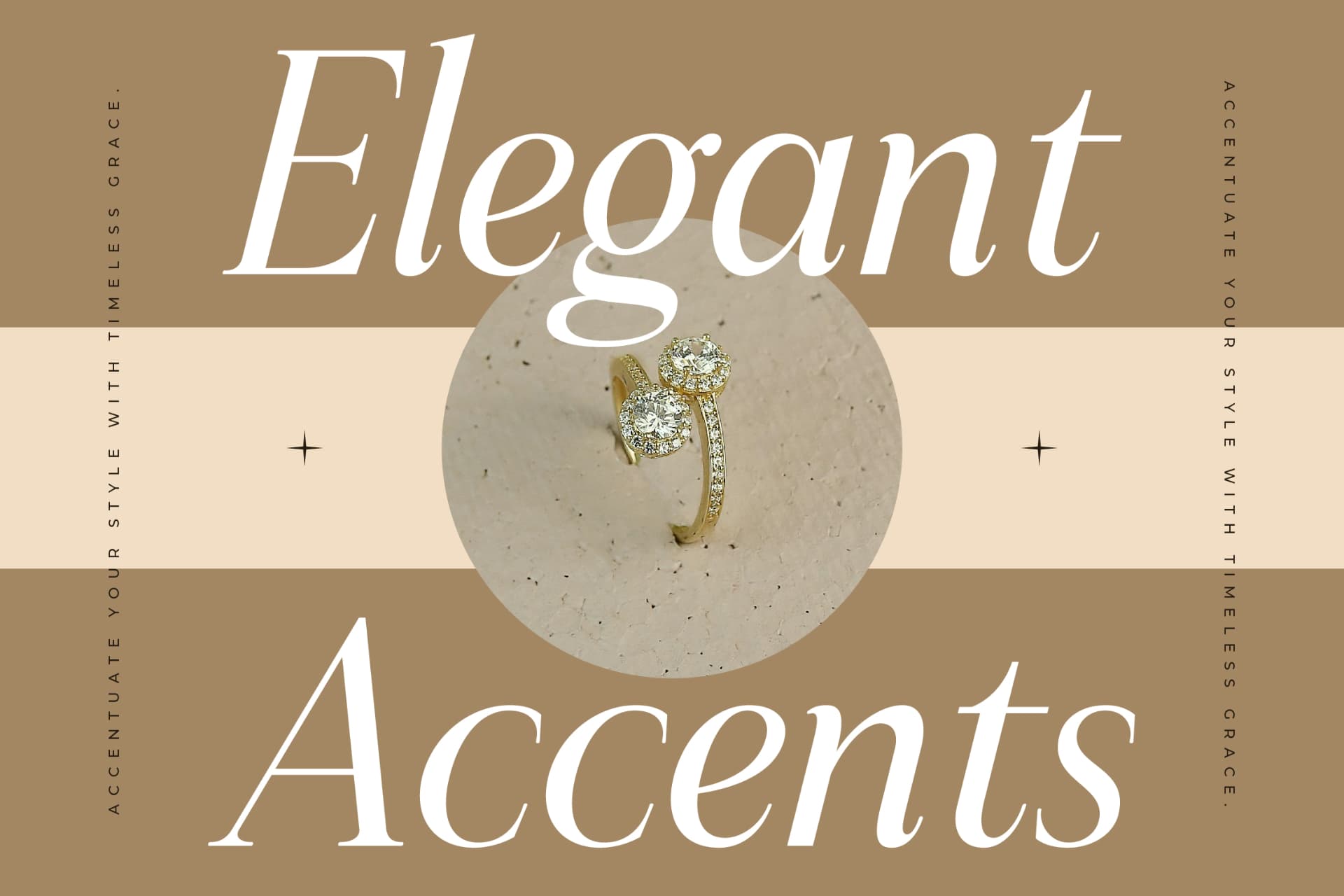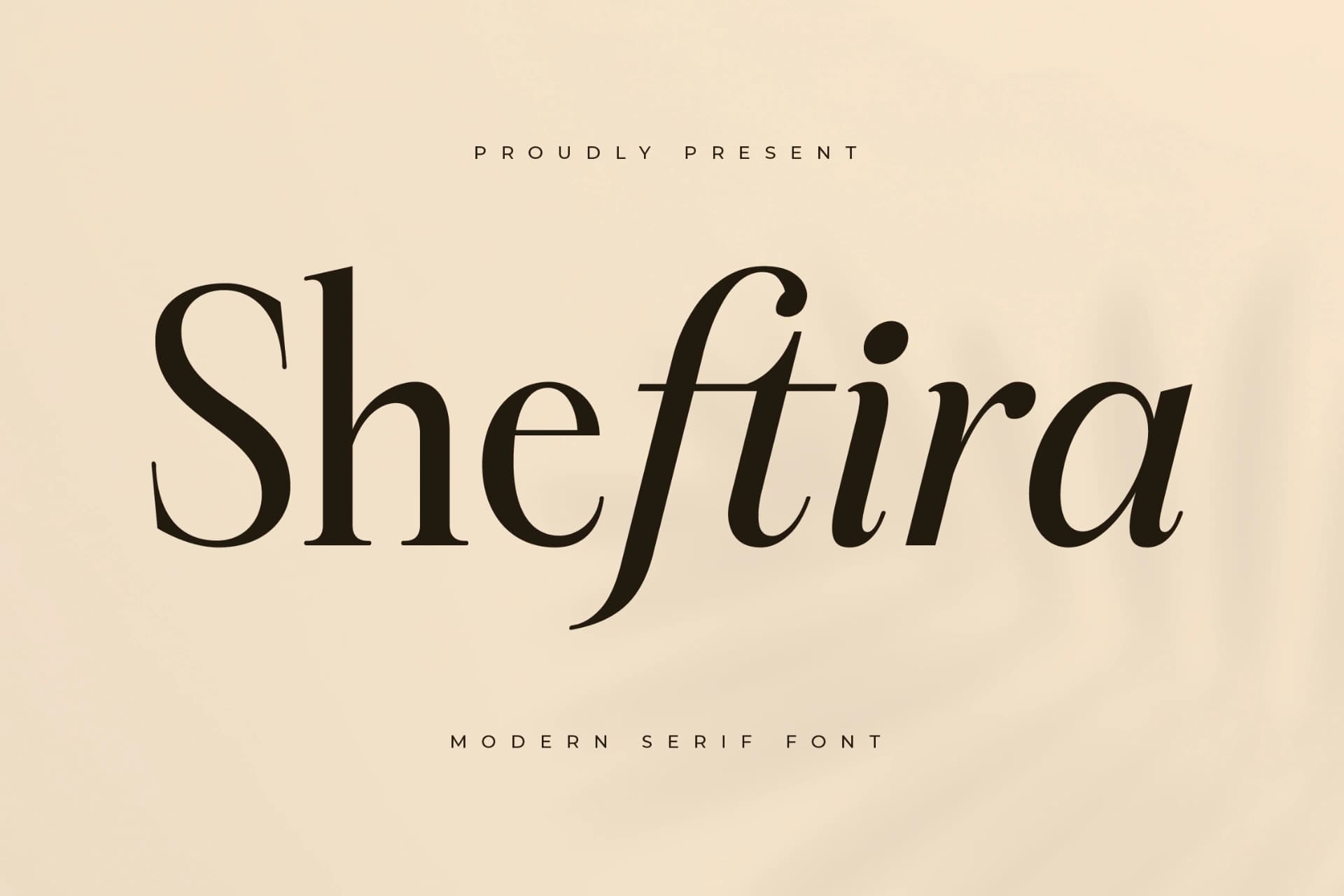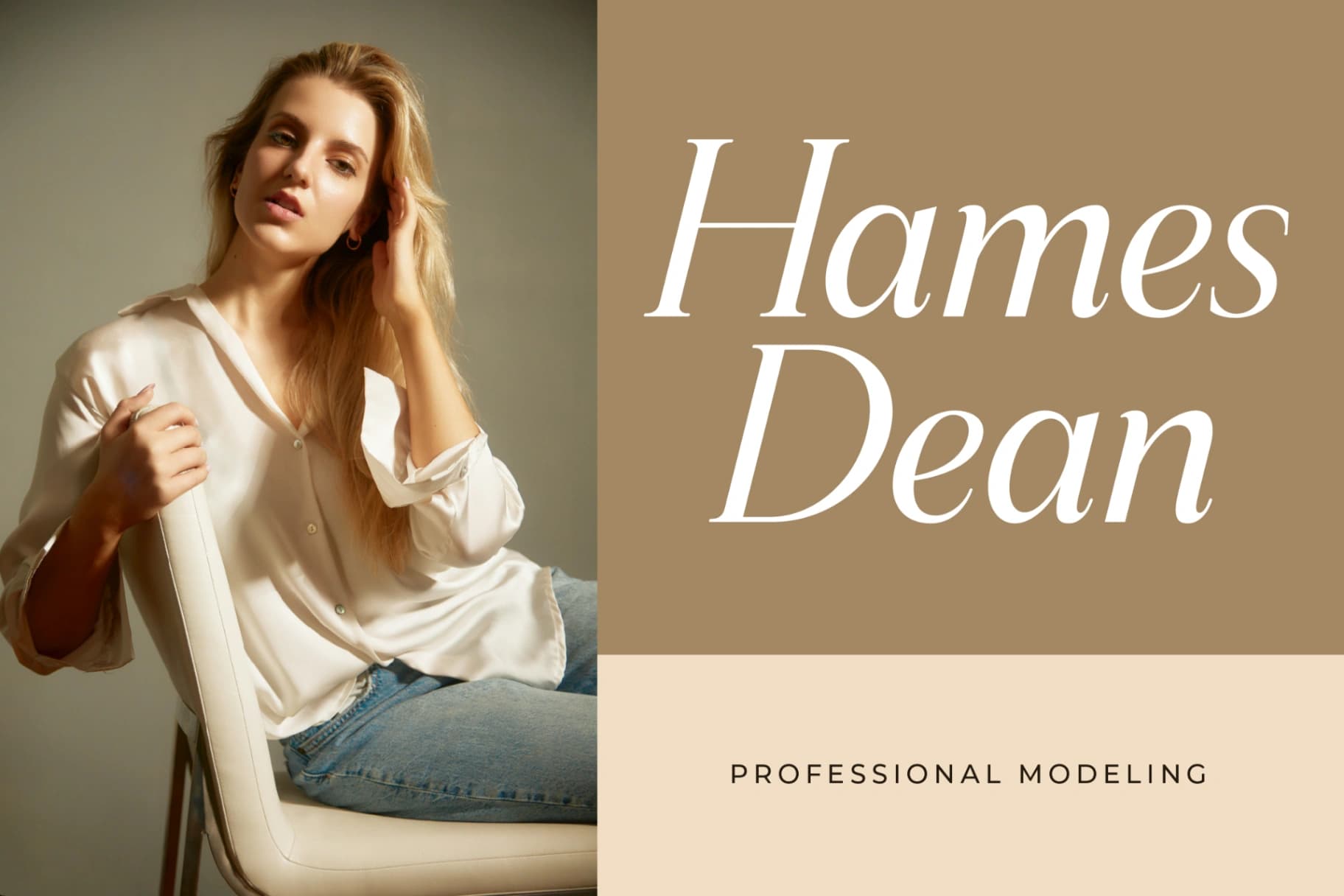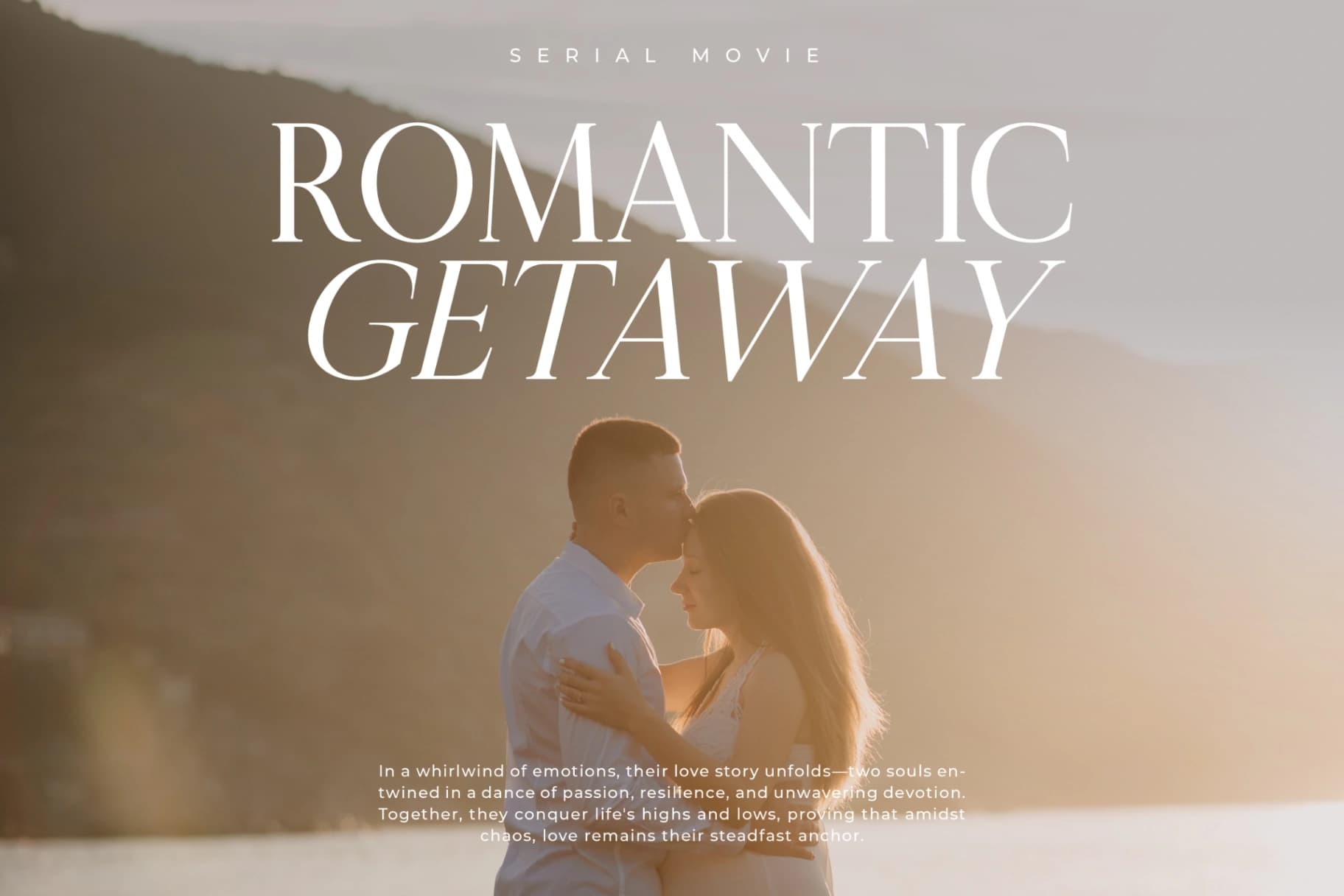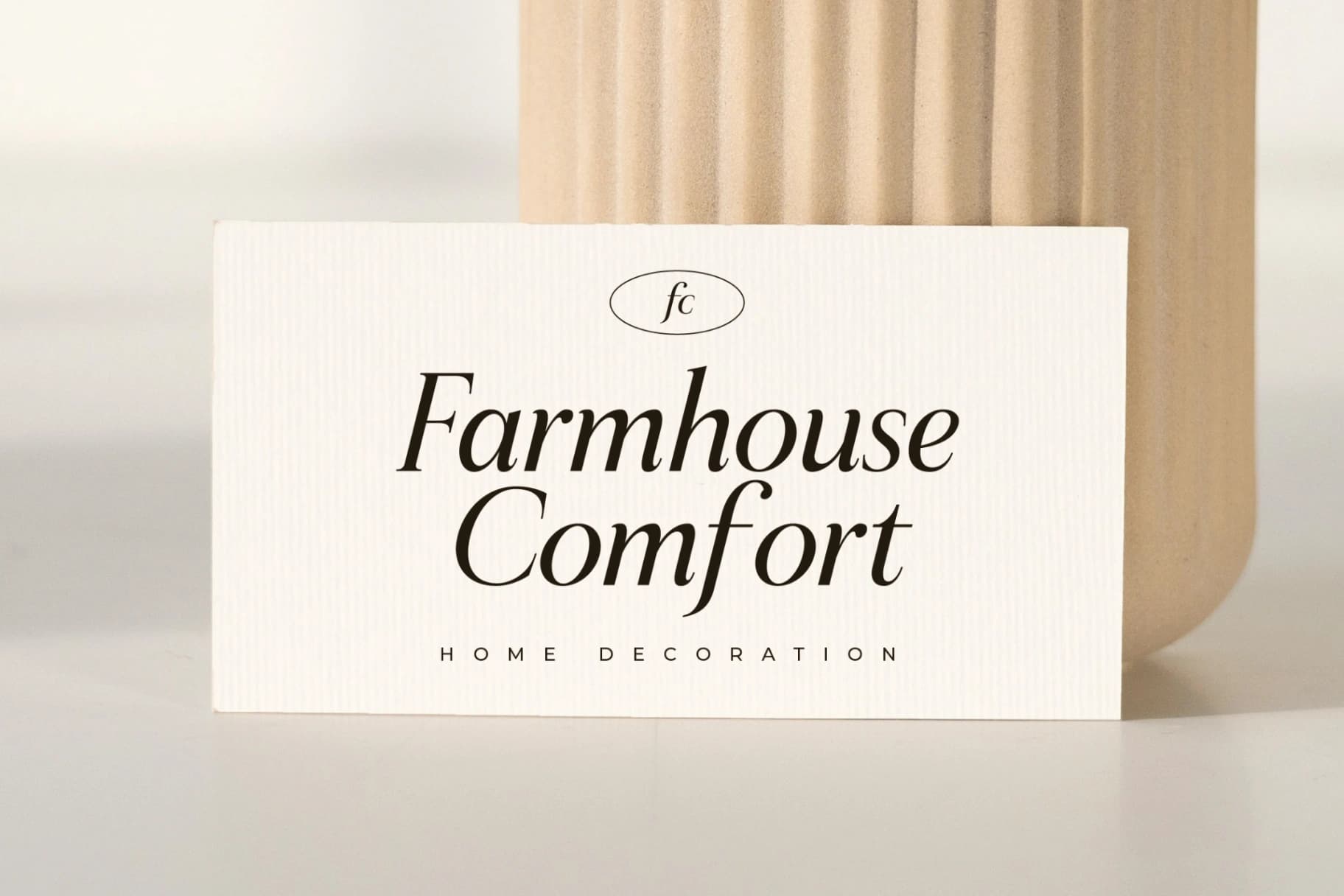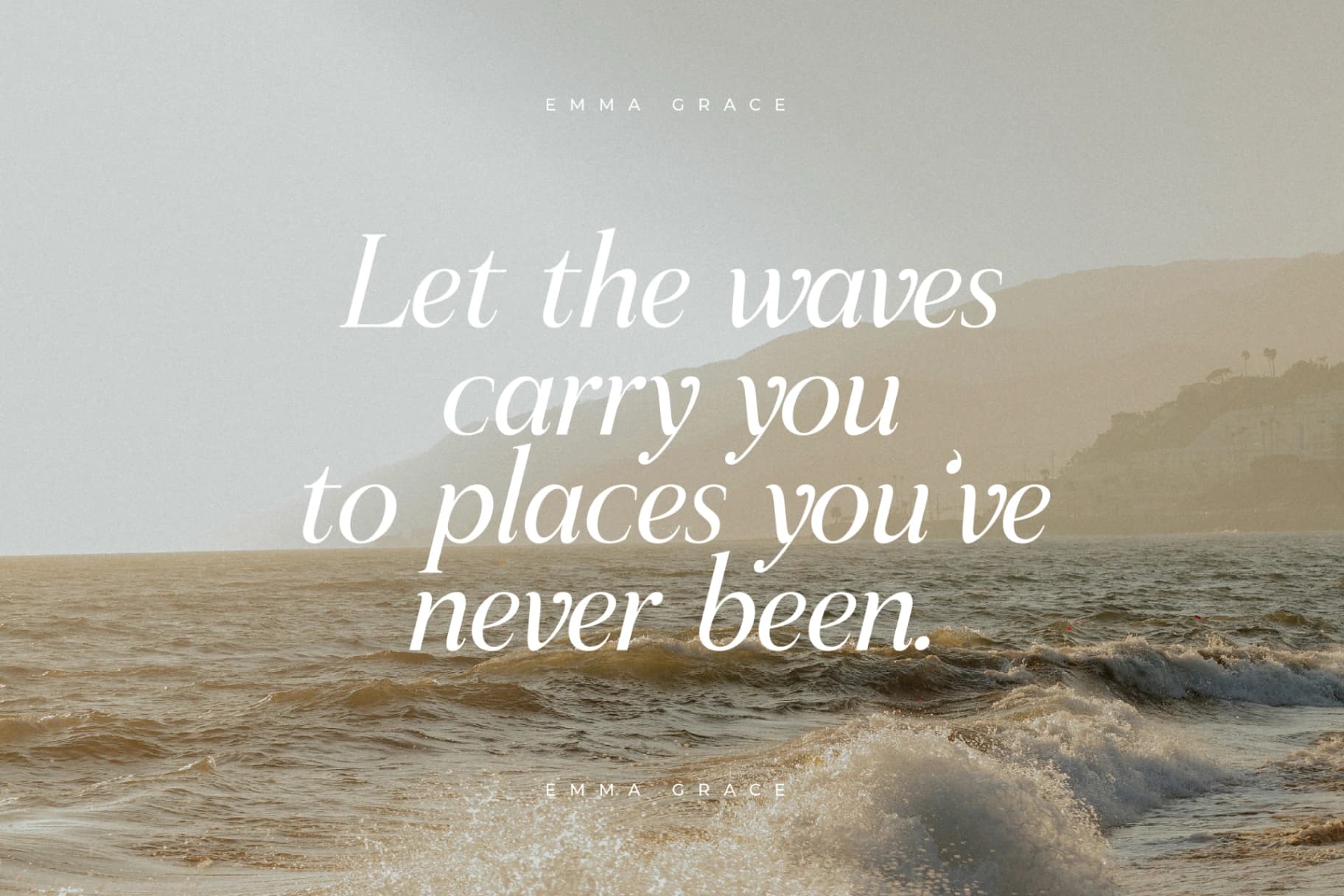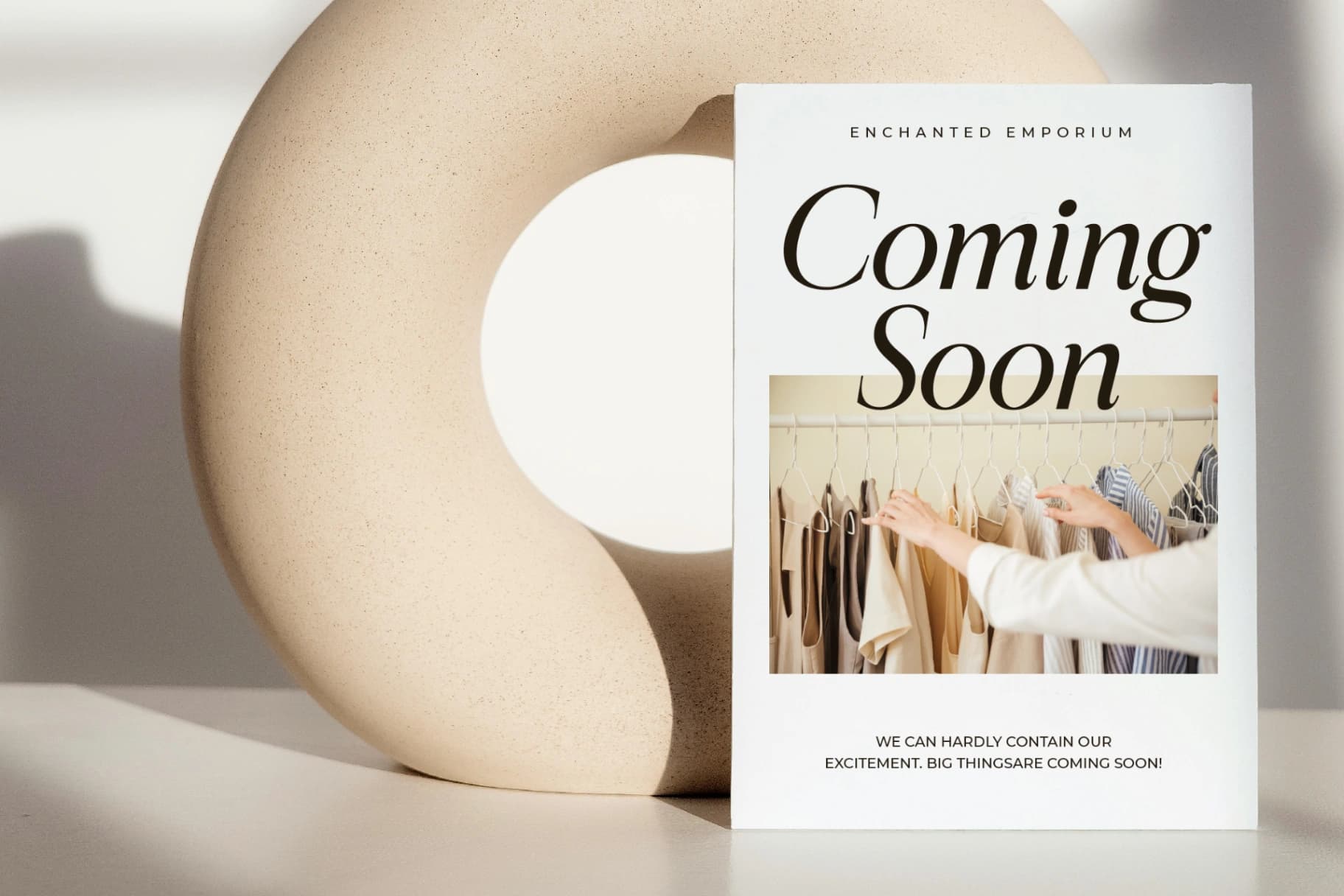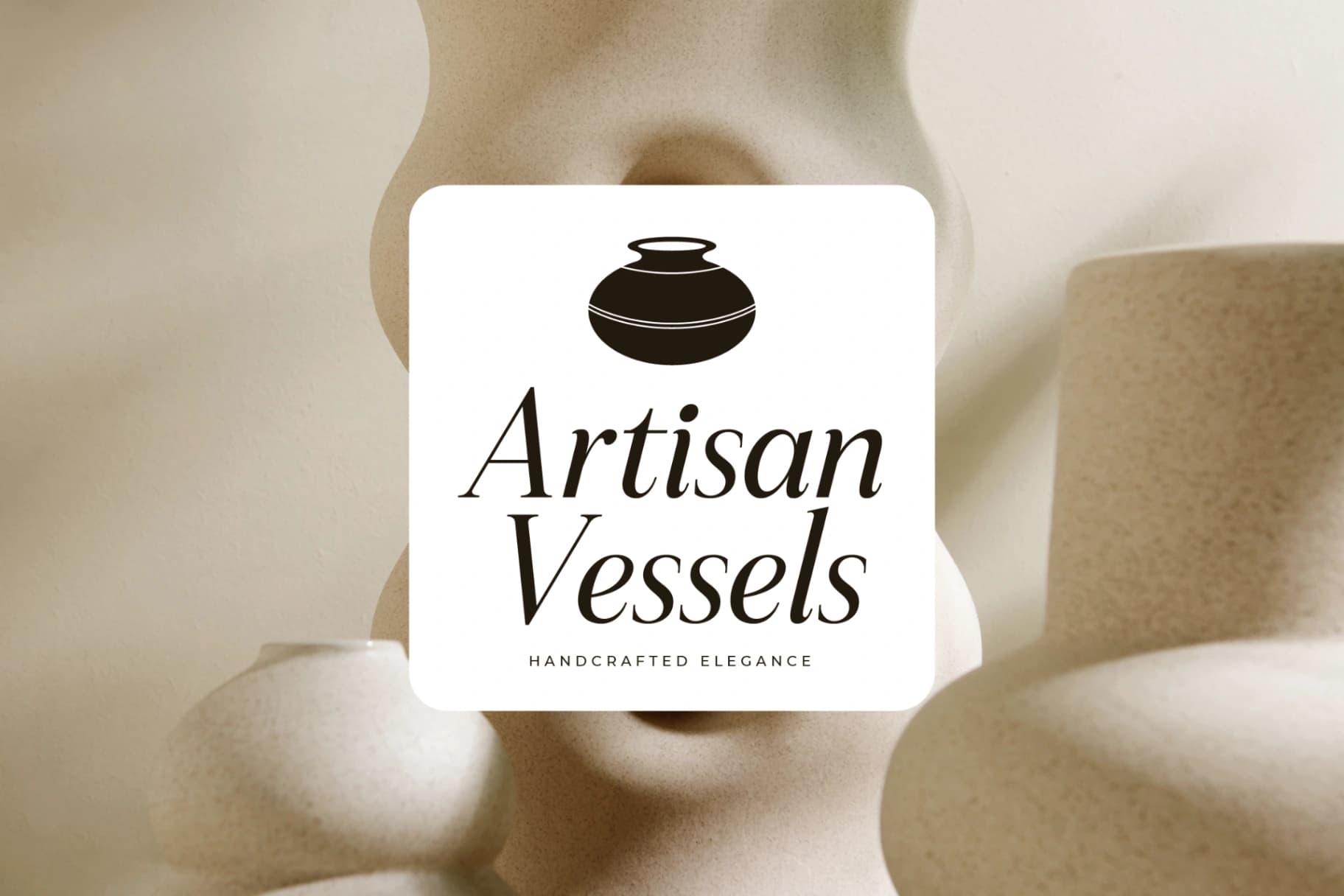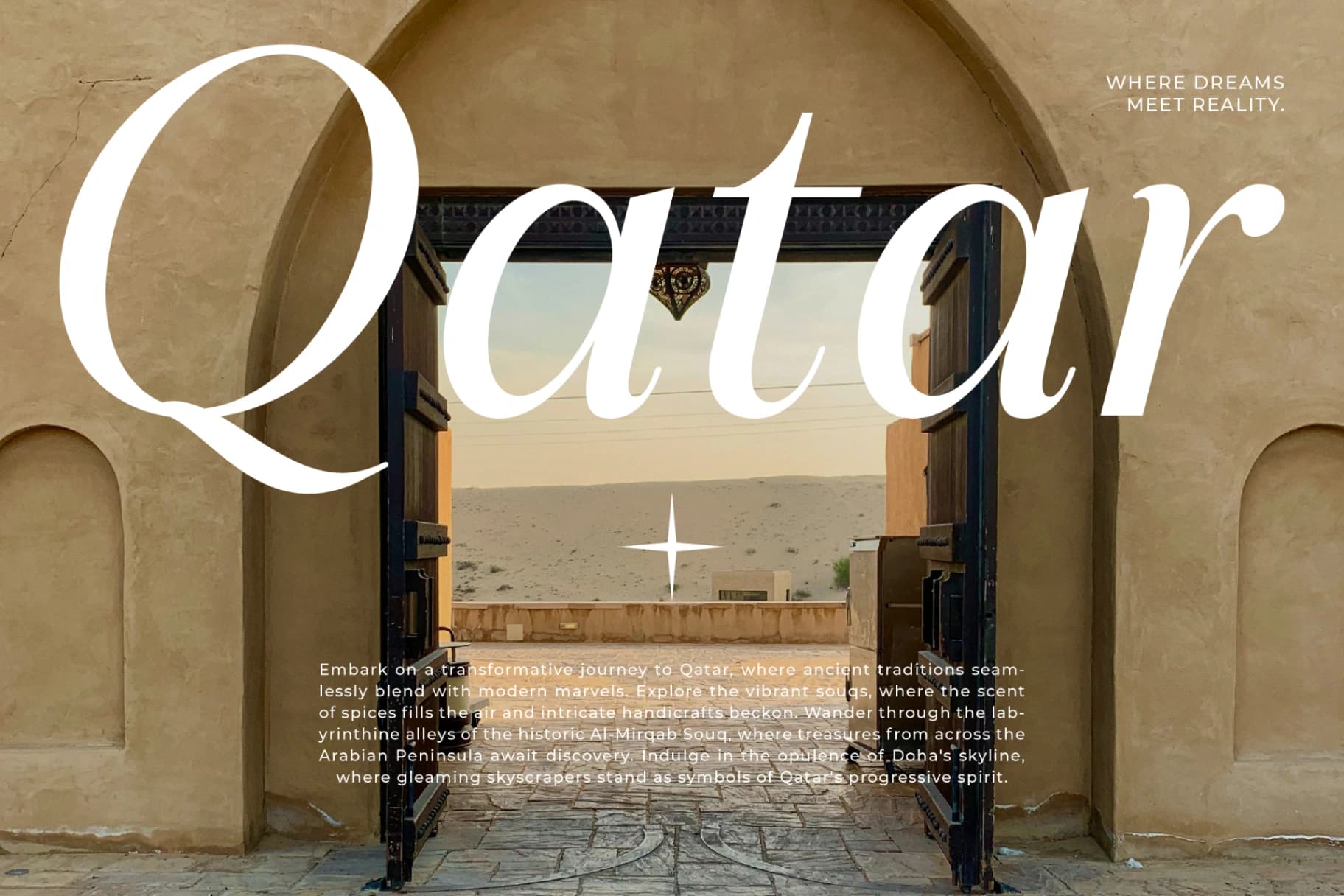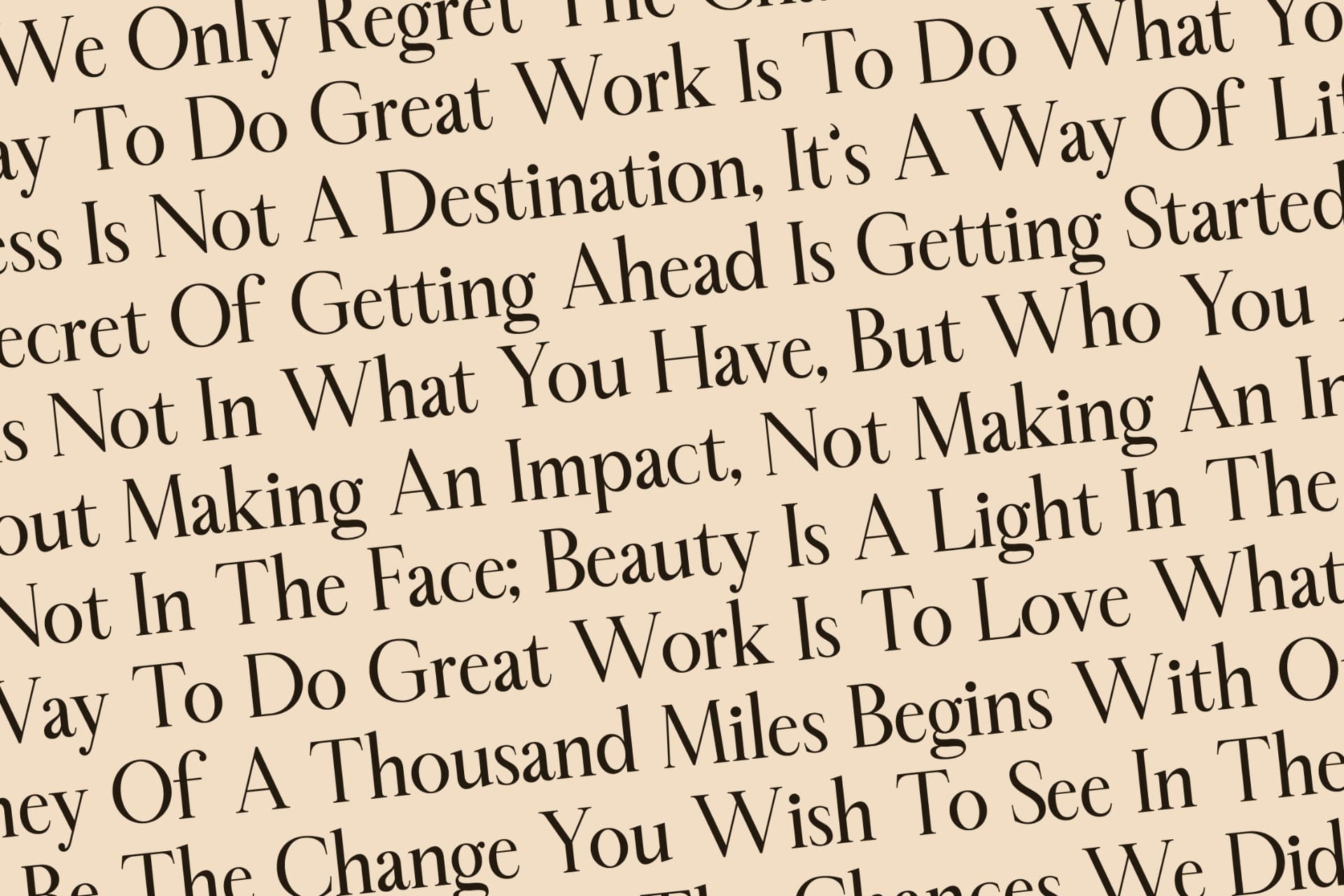
Sheftira - Modern Serif Font
Elevate your designs with timeless sophistication and modern allure. Introducing Sheftira - Modern Serif Font, a meticulously crafted typeface balancing classic elegance with contemporary style. Its distinguished high-contrast strokes and gracefully refined serifs create an instant impression of luxury and exclusivity. This font exudes confidence and aesthetic appeal, making it ideal for a truly premium brand identity.
Beyond its exquisite form, Sheftira - Modern Serif Font offers unparalleled functionality and global reach. Subtle yet impactful details, like unique ligatures and sophisticated curves, ensure your text is felt, not just read. With its extensive multilingual support, Sheftira - Modern Serif Font adapts seamlessly across global markets, making it incredibly versatile for international projects and ensuring consistent professionalism.
Discover the perfect canvas for your most ambitious and discerning projects. Sheftira - Modern Serif Font is ideally suited for luxury branding, high-end editorial design, elegant packaging, and sophisticated invitations. It commands attention in headlines, adds gravitas to copy, and imbues every application with refined quality. It guarantees a distinguished and memorable presence.
Invest in a typeface that truly differentiates your work and captivates your audience. Choosing Sheftira - Modern Serif Font significantly enhances your brand's visual language. Its inherent elegance and versatile nature provide designers a powerful tool to create impactful, unforgettable experiences. Secure your competitive edge and transform your creative vision with this modern serif masterpiece.